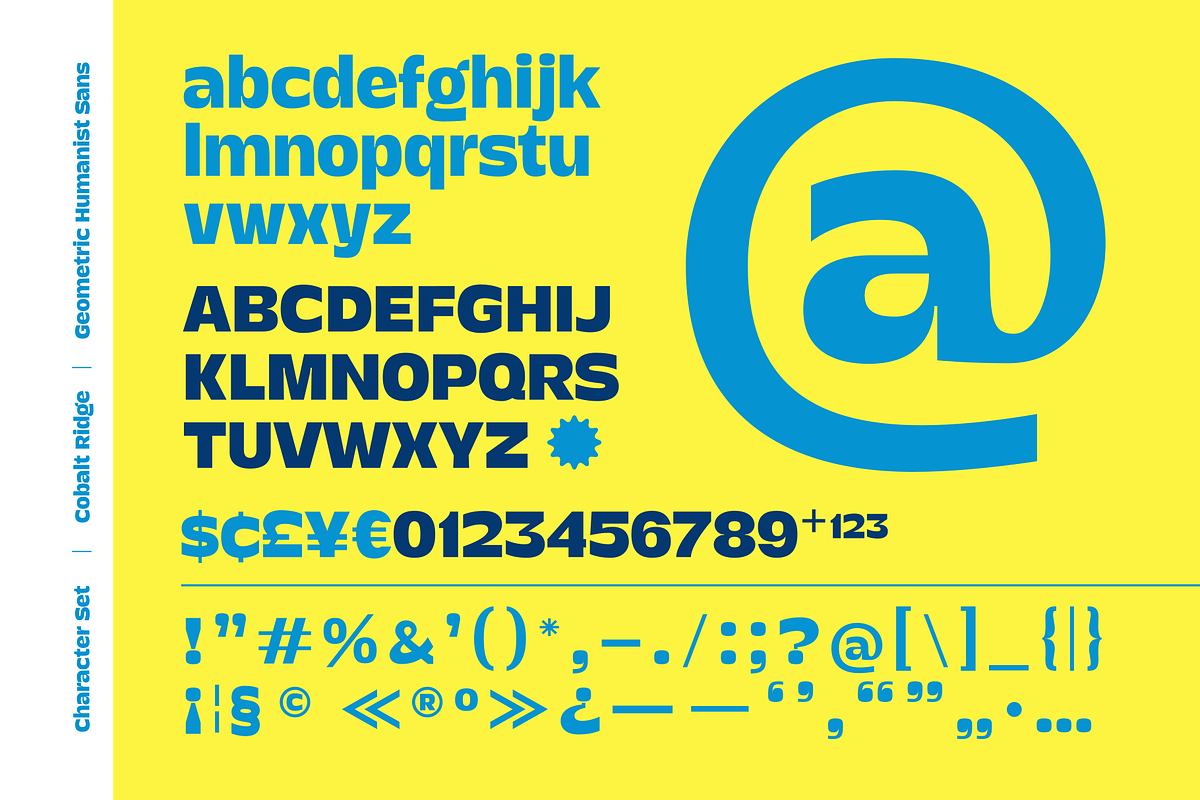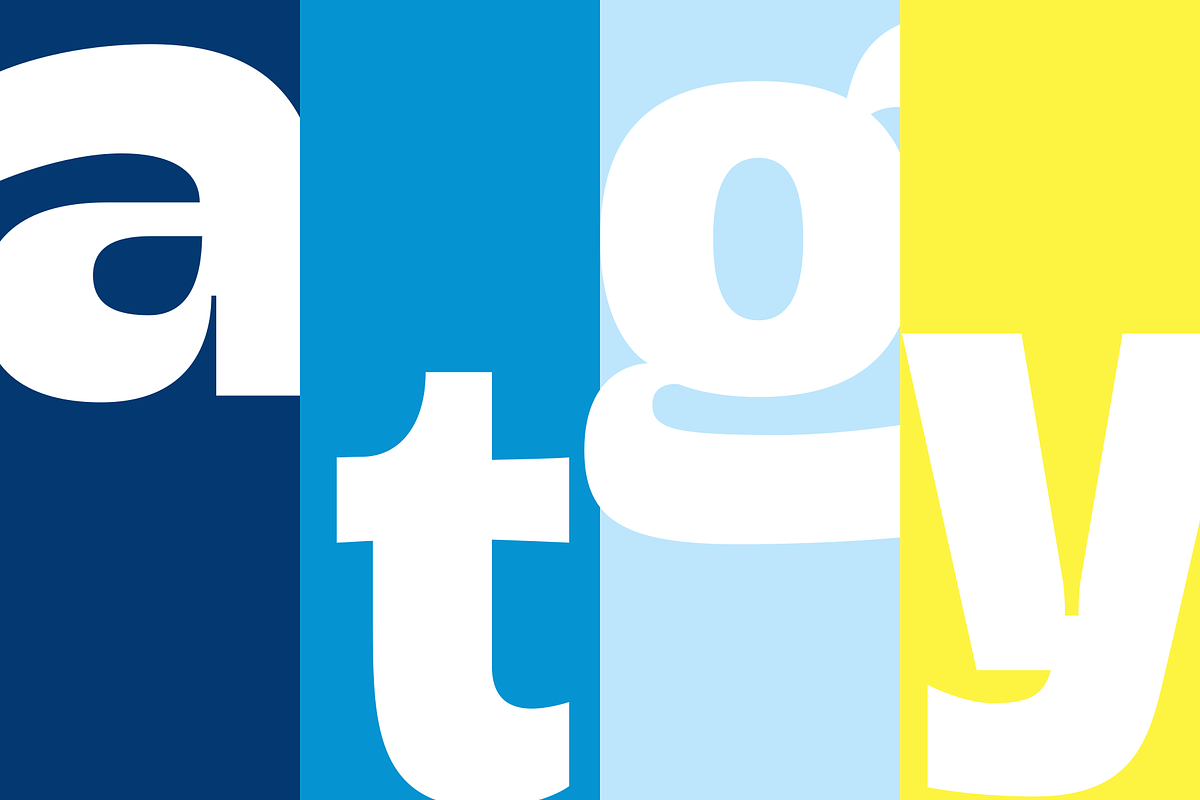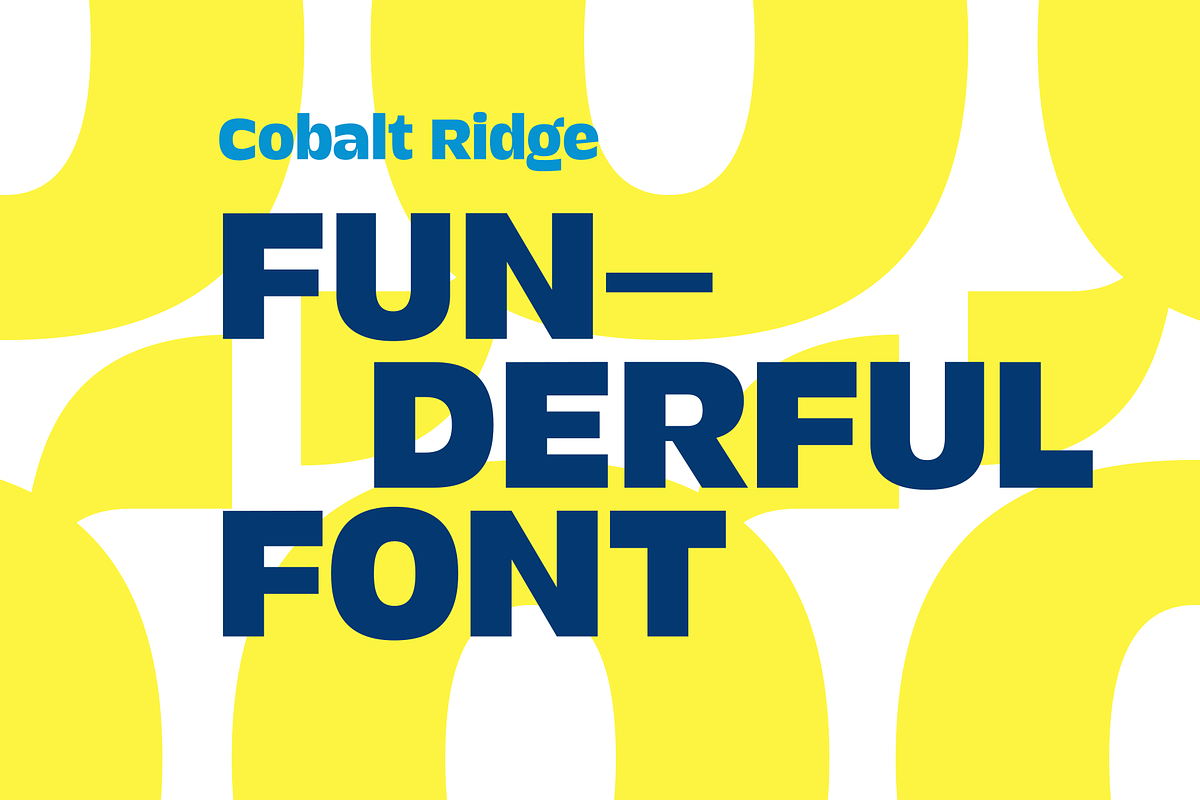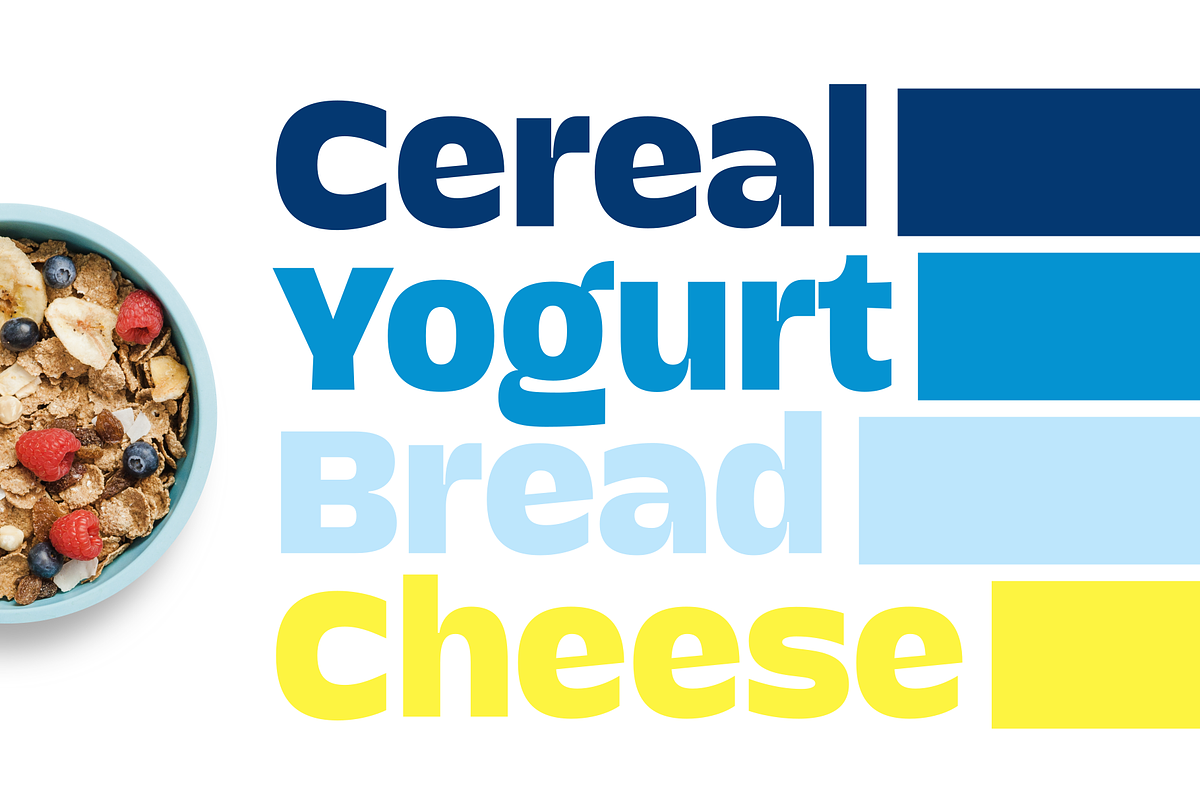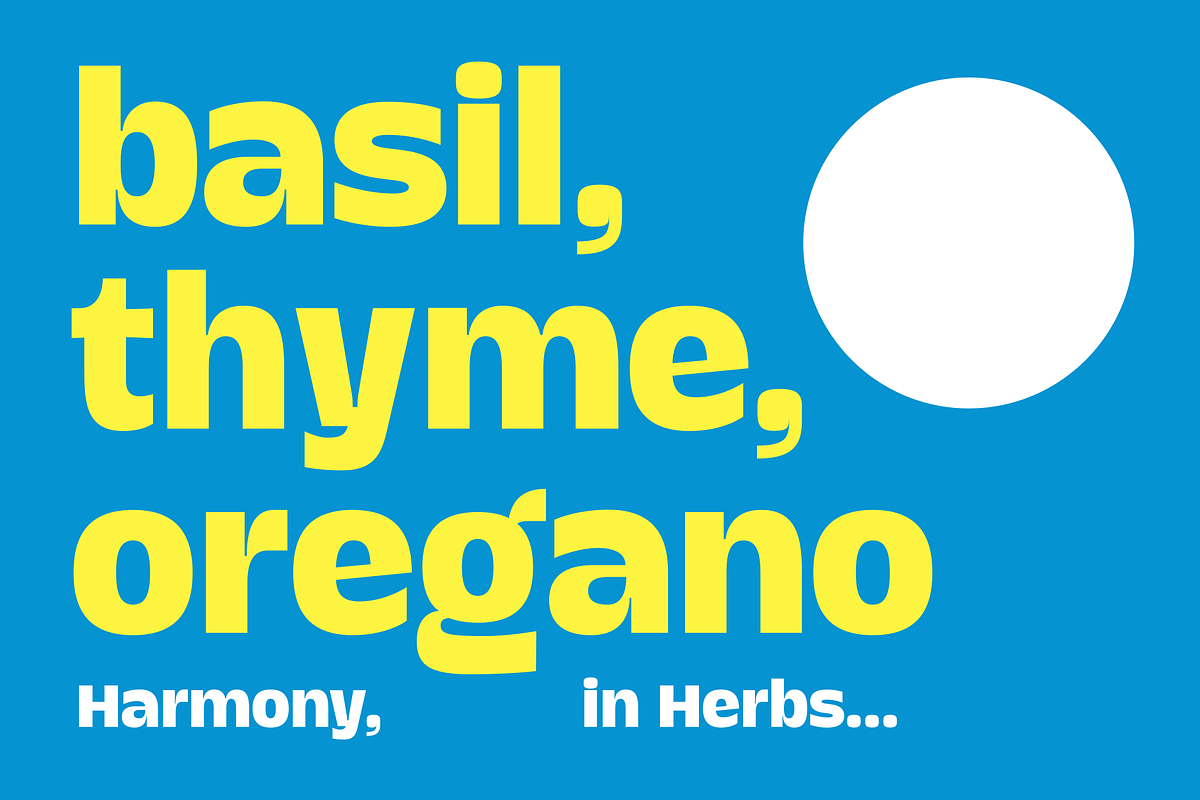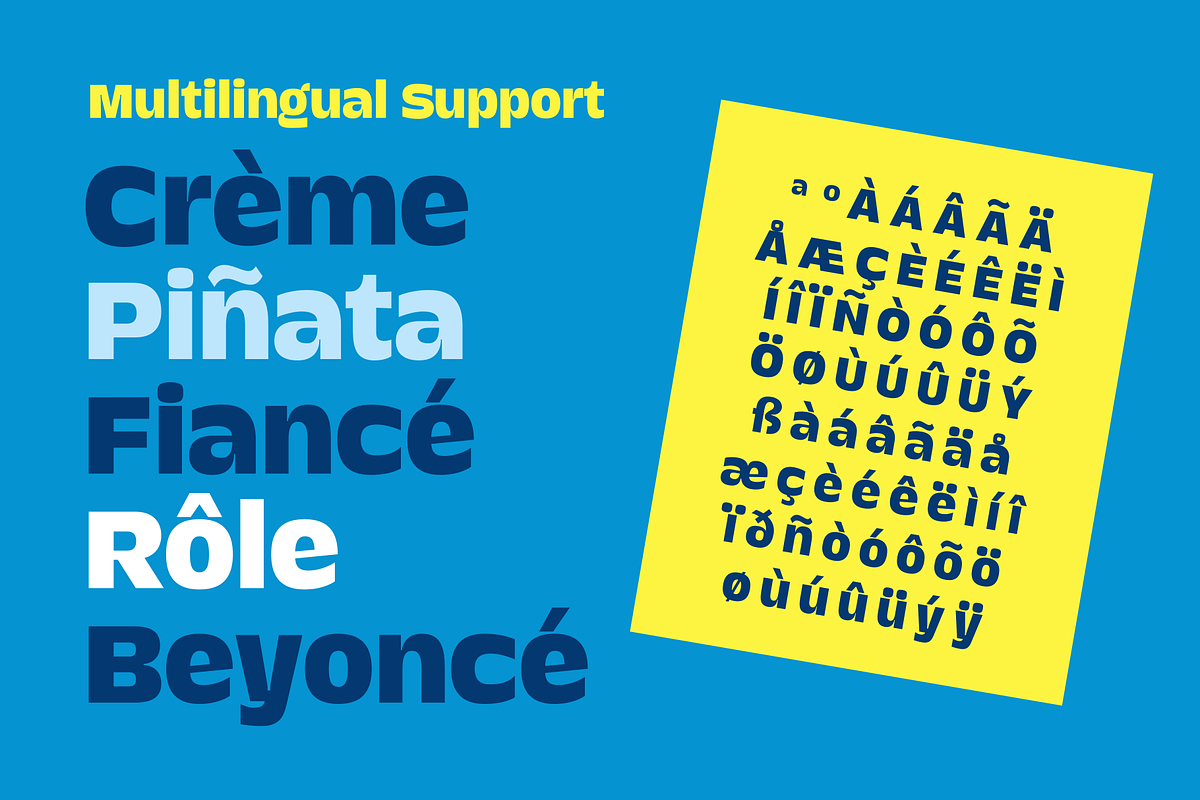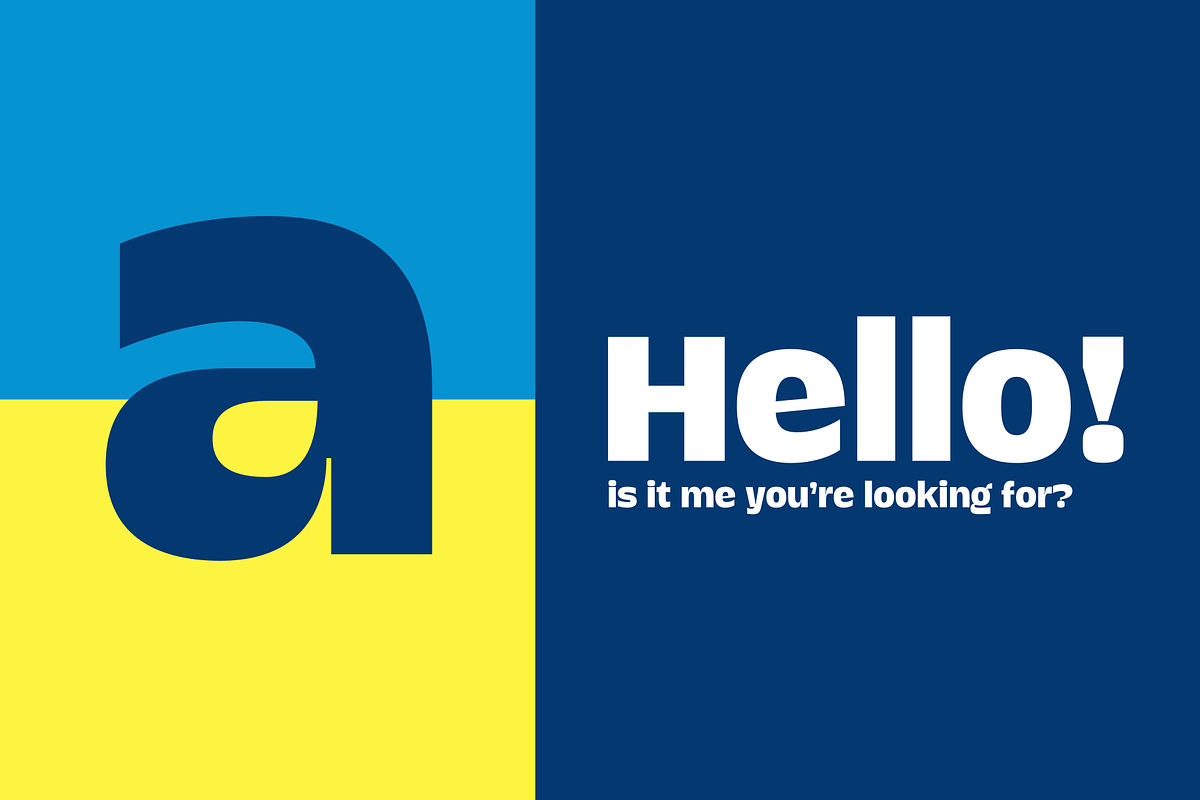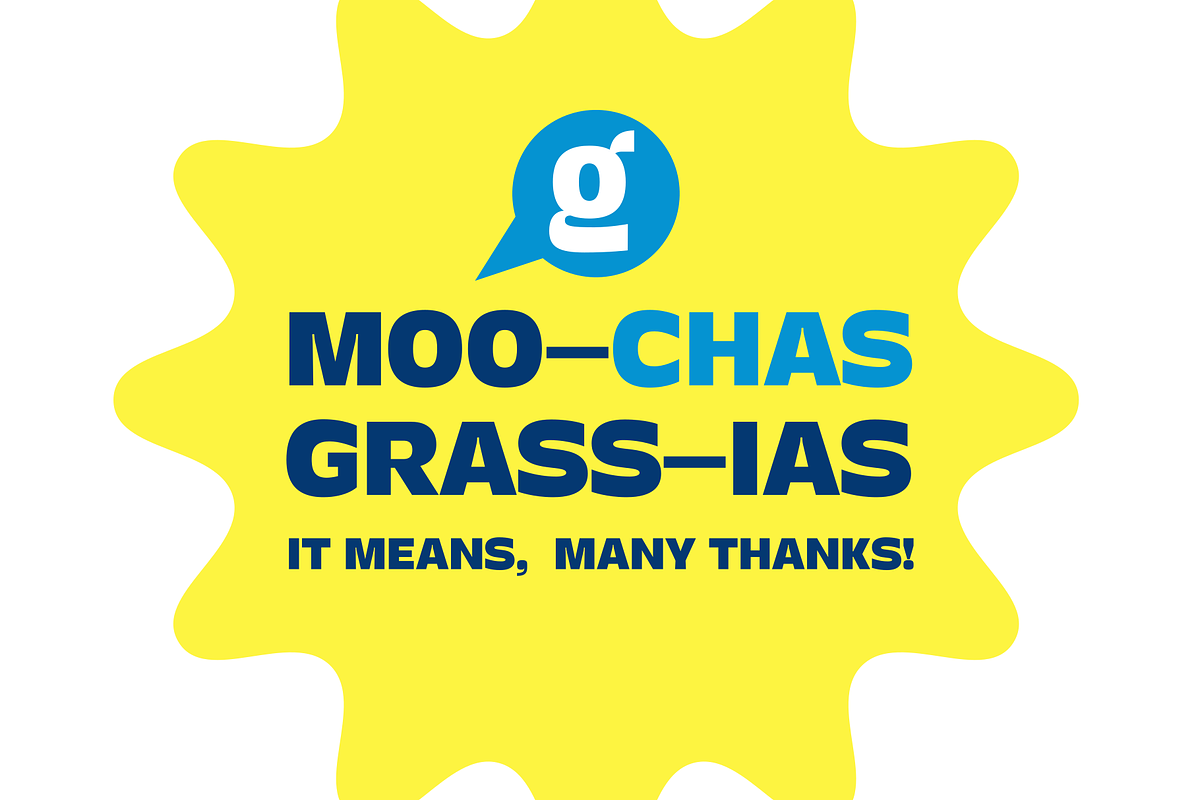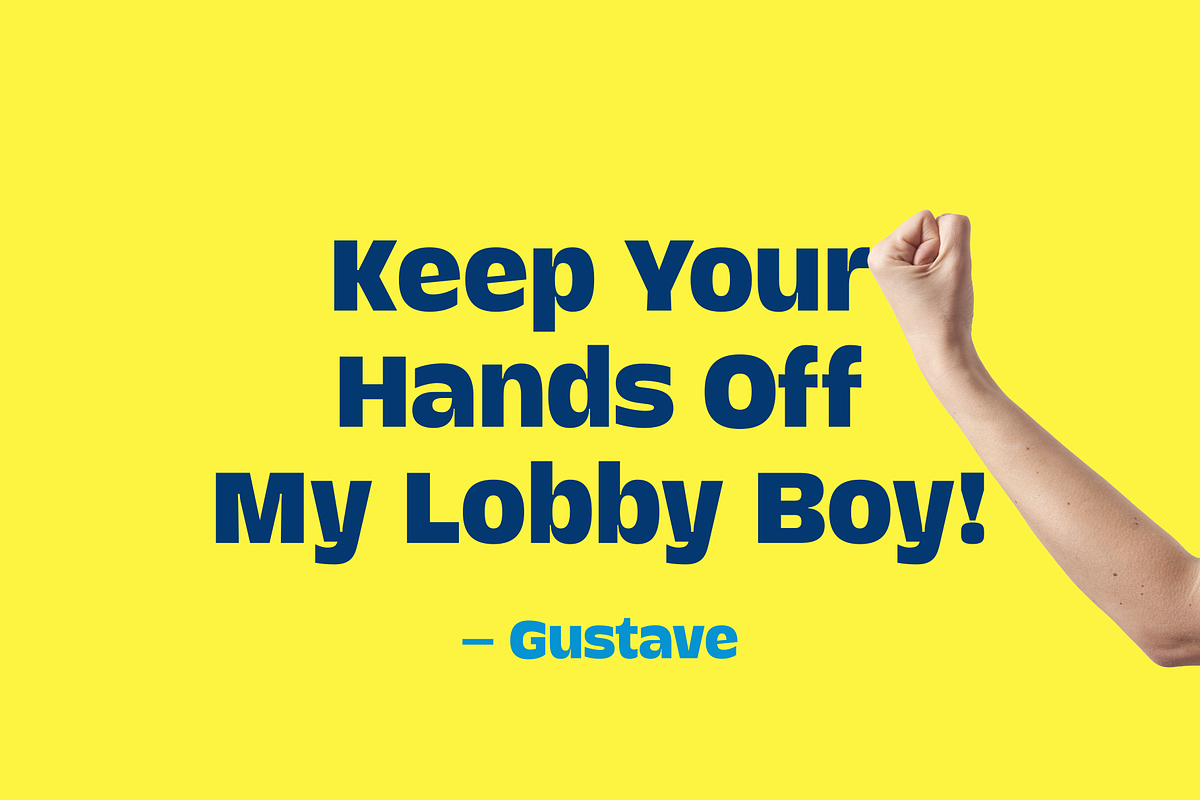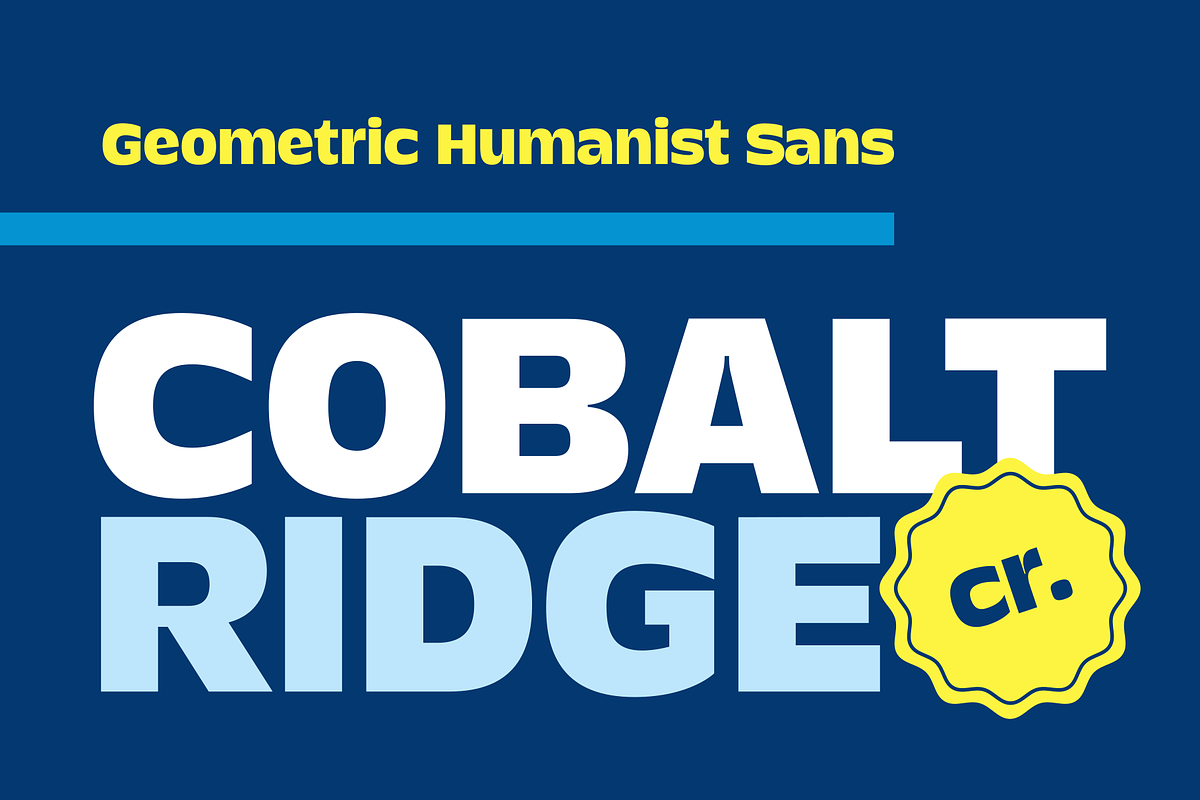
Cobalt Ridge
Cobalt Ridge A strong and bold sans font exudes strength and confidence with its clean lines and thick letterforms. It commands attention and adds a modern touch to any design.